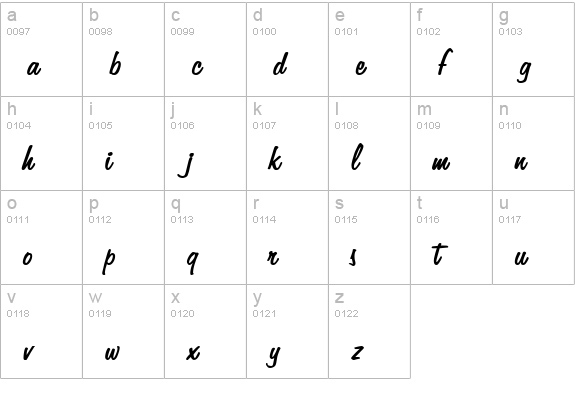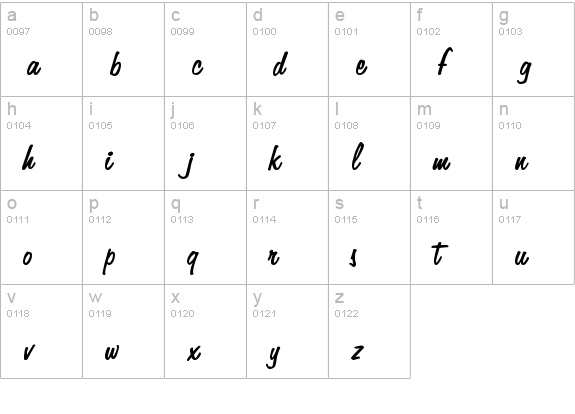
Jonathan Font Details
Jonathan font is a timeless and versatile typeface that exudes elegance and sophistication. Its classic design makes it perfect for a wide range of design projects, from branding to editorial content. With its clean lines and easy readability, Jonathan font is sure to make a statement in any layout. The best part about Jonathan font is that it is completely free to download at FontsMarket.com. This means you can add this beautiful font to your collection without any cost, making it a fantastic option for designers on a budget or anyone looking to enhance their projects with a touch of style. Don't miss out on the opportunity to elevate your designs with the Jonathan font - download it for free today at FontsMarket.com and see the difference it can make in your creative work!